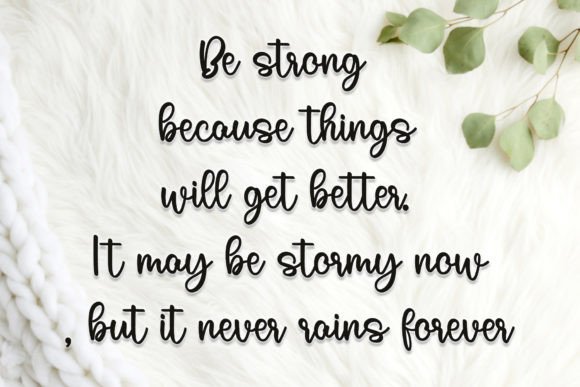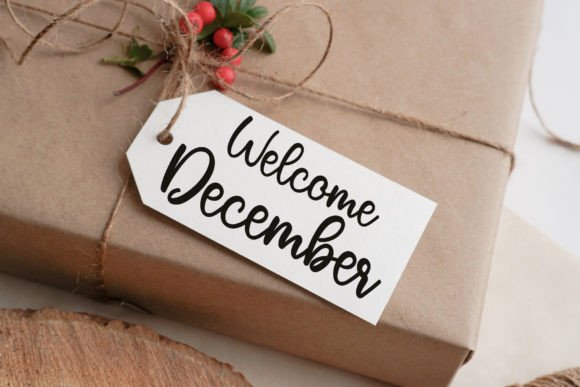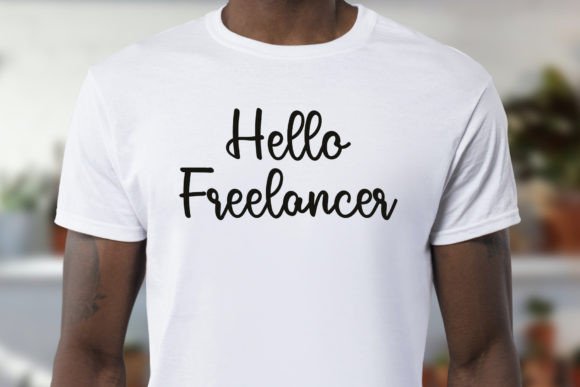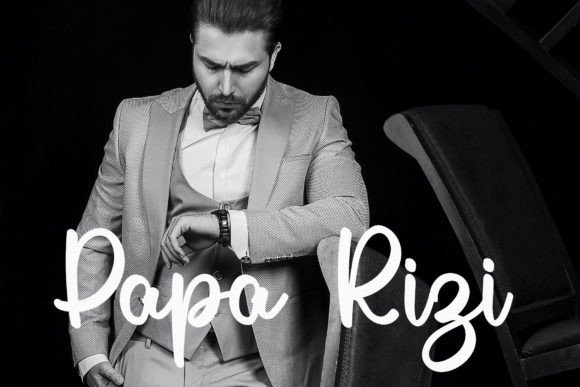
Elevate your design projects with the Barbies font, a stylish handwritten script that blends contemporary flair with timeless classic calligraphy. This font offers a balanced and varied style, making it ideal for a wide range of creative applications.
The Barbies font features clean, flowing strokes that enhance the beauty of your work. Its impeccable form ensures that every letter looks polished and elegant, giving your designs a professional yet artistic feel.
You can use the Barbies font for branding, logos, invitations, posters, social media graphics, and much more. Its versatility allows it to complement many styles, from modern to classic. This font is perfect for anyone who wants to add sophistication and charm to their projects.
Despite its stylish design, the Barbies font maintains excellent readability at different sizes. Whether used for headlines or body text, it ensures your message is clear and impactful.
Using the Barbies font will add a unique and elegant touch to your creative projects. If you want a handwritten script that combines style, balance, and classic inspiration, this font is an excellent choice.
In summary, the Barbies font is a stylish, balanced, and elegant handwritten script. Perfect for branding, invitations, social media, and more, it brings timeless beauty and contemporary style to every project. Download it today and enhance your designs with Barbies.